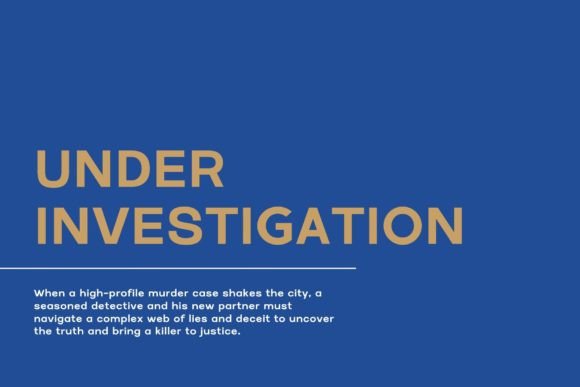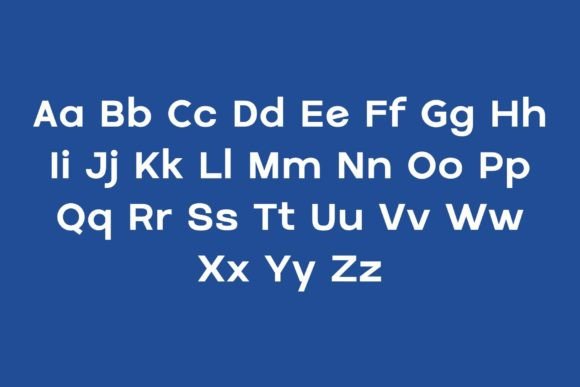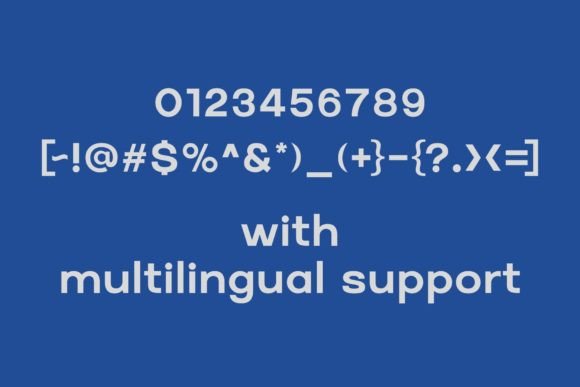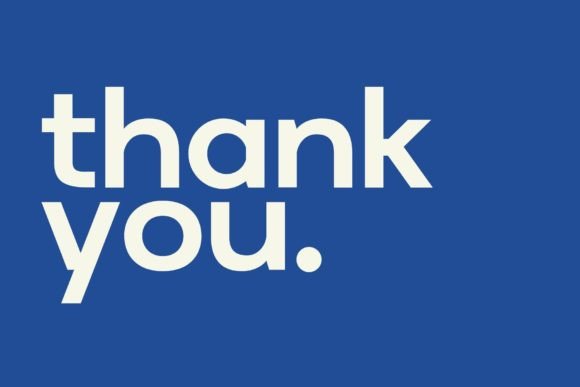
Introduction to Resfirk Font
Introducing “Resfirk” – a modern sans serif font that embodies simplicity and sophistication.
With clean lines and a contemporary aesthetic, Resfirk is versatile for a wide range of design applications Whether you’re crafting sleek branding, minimalist layouts, or professional presentations, this font lends a crisp and polished look to your typography.